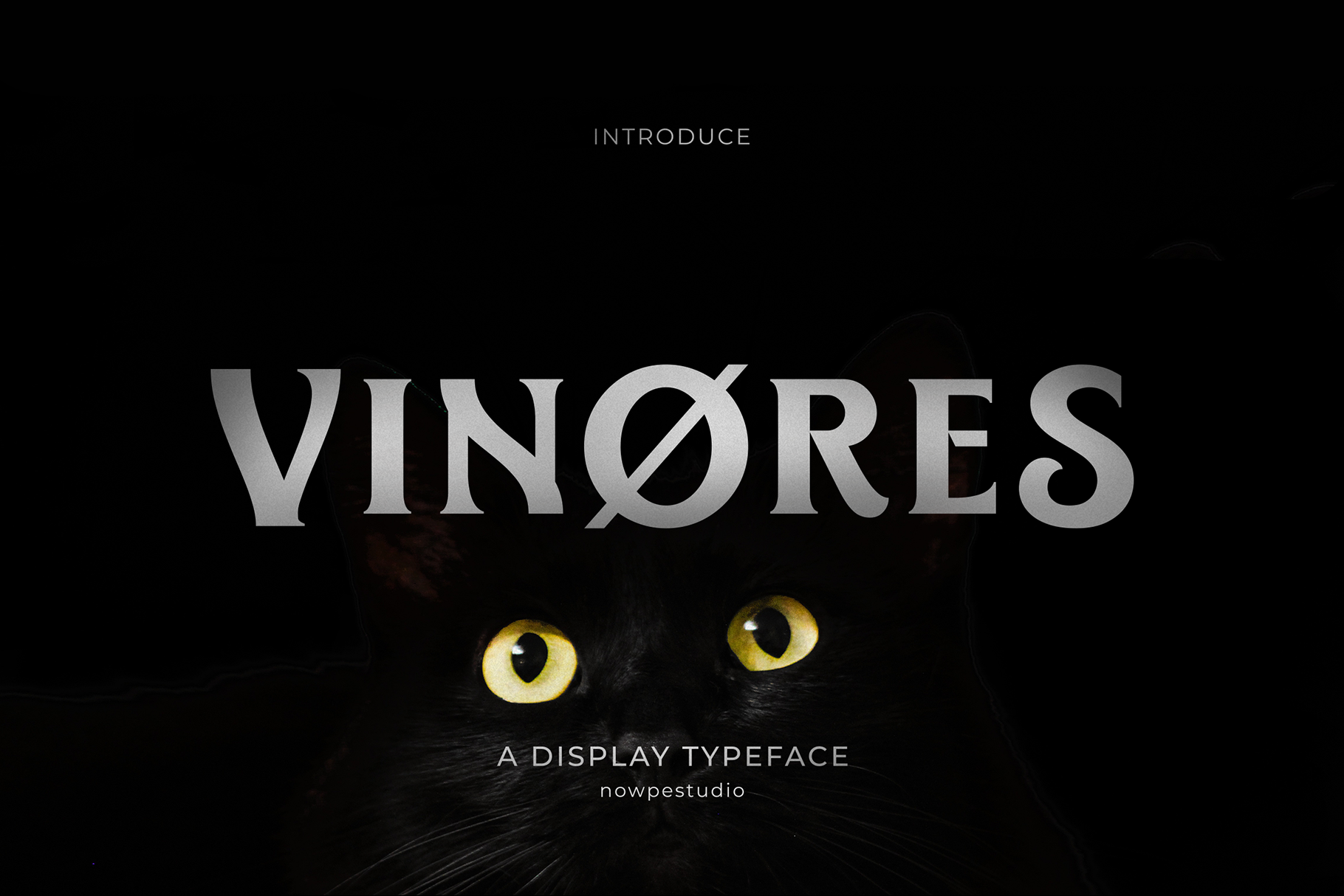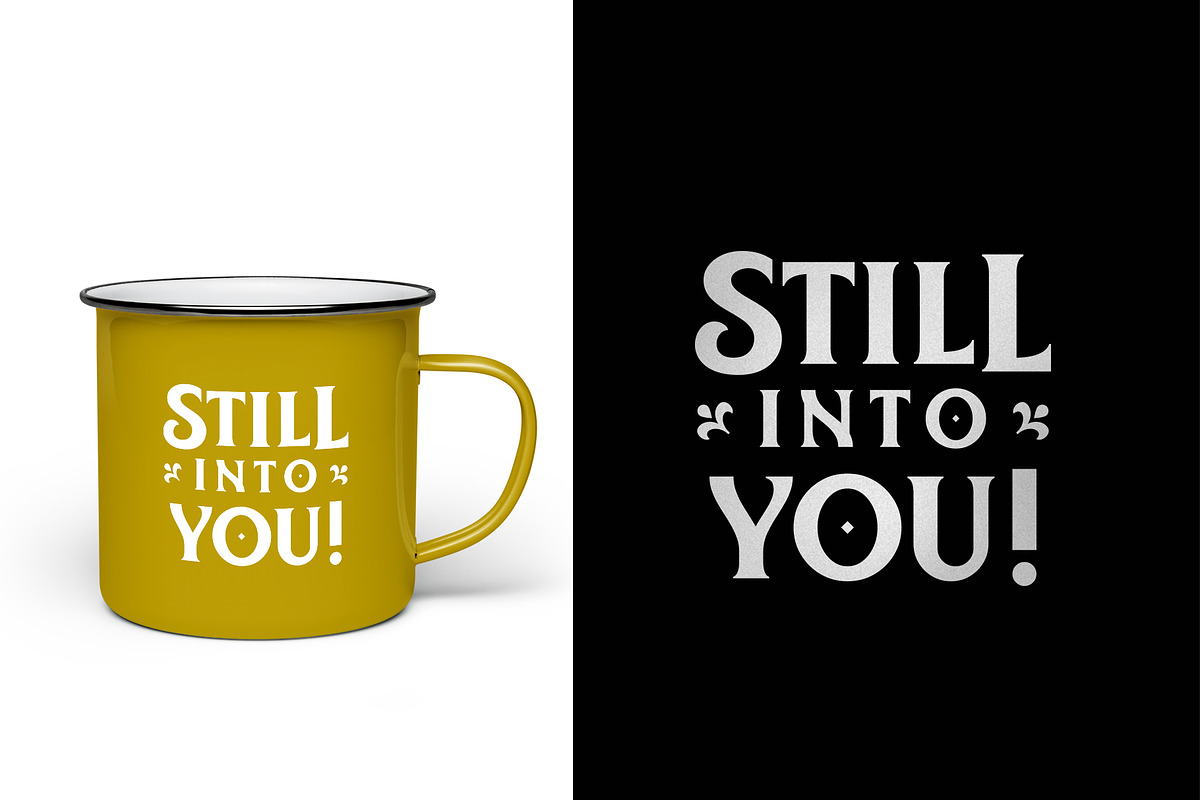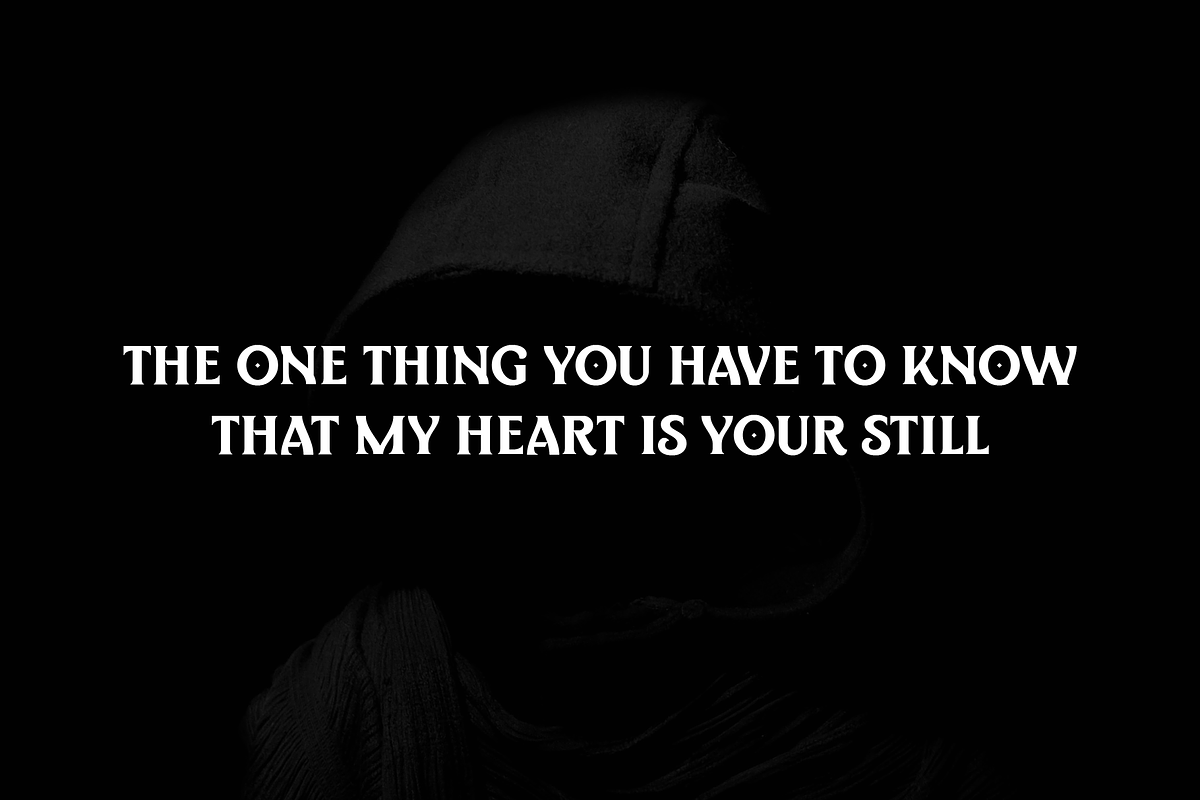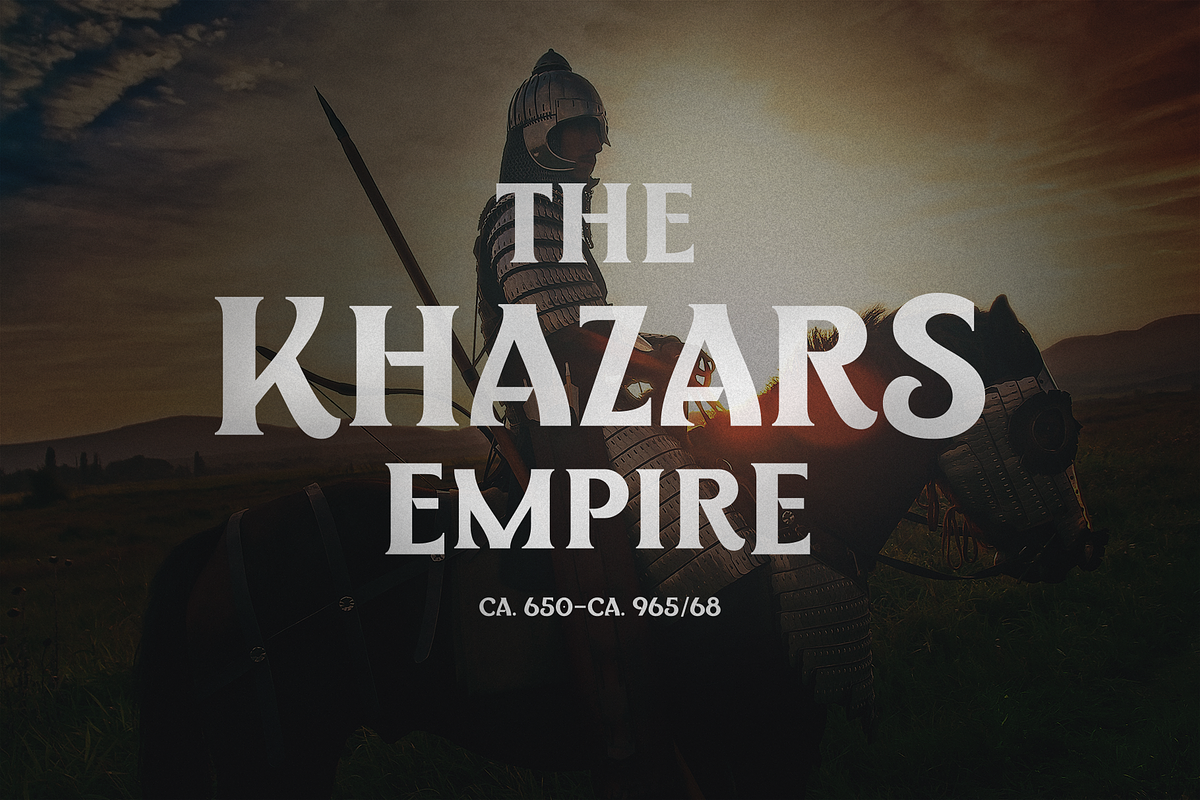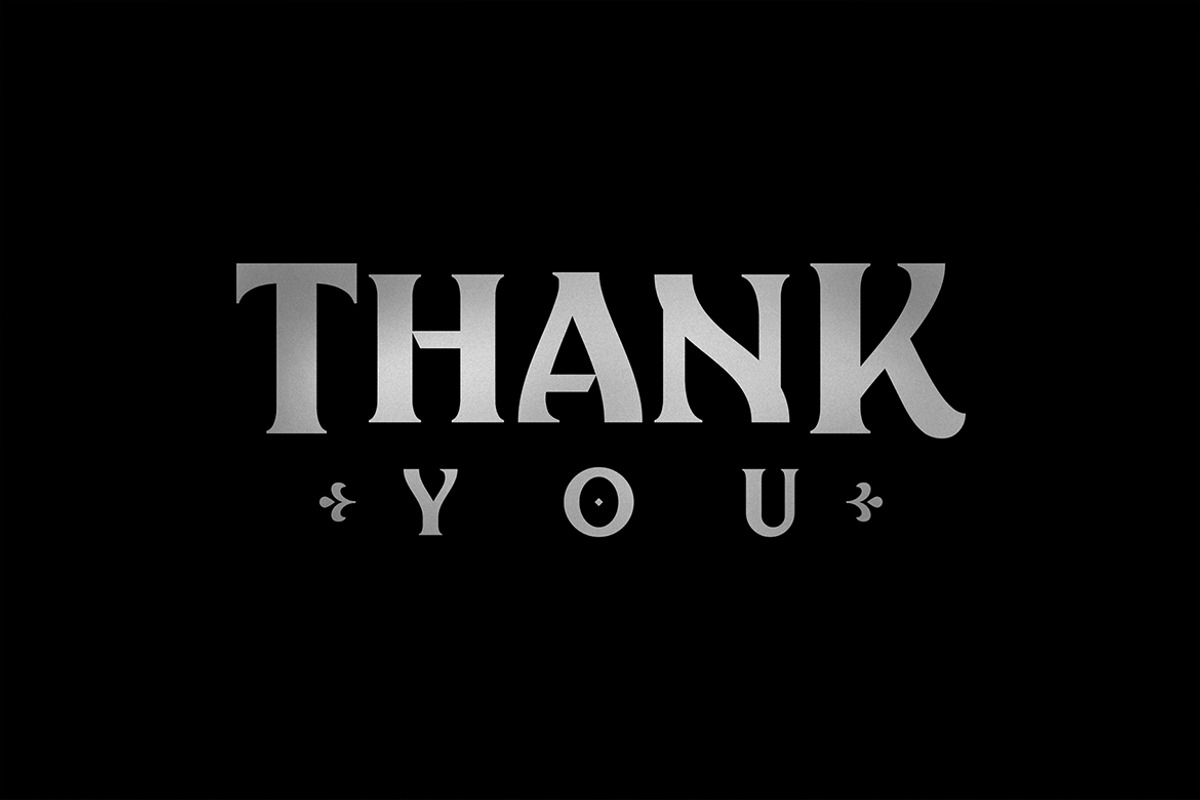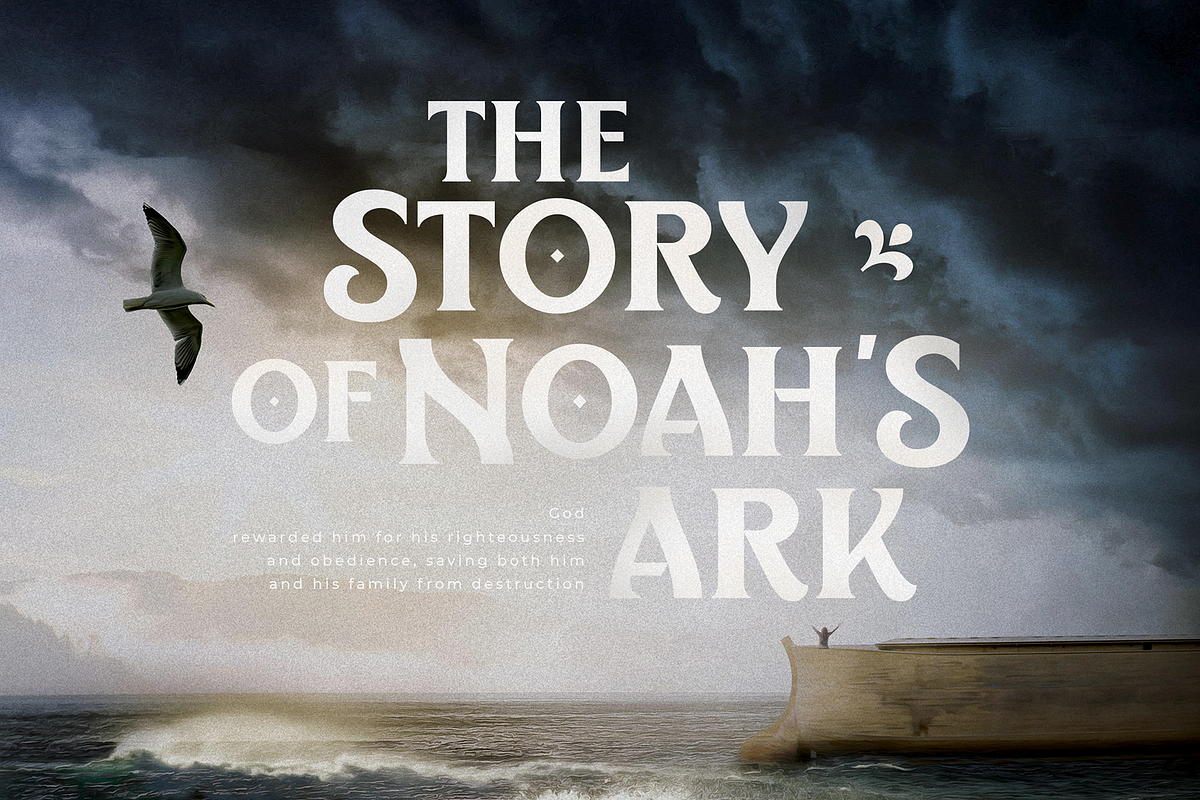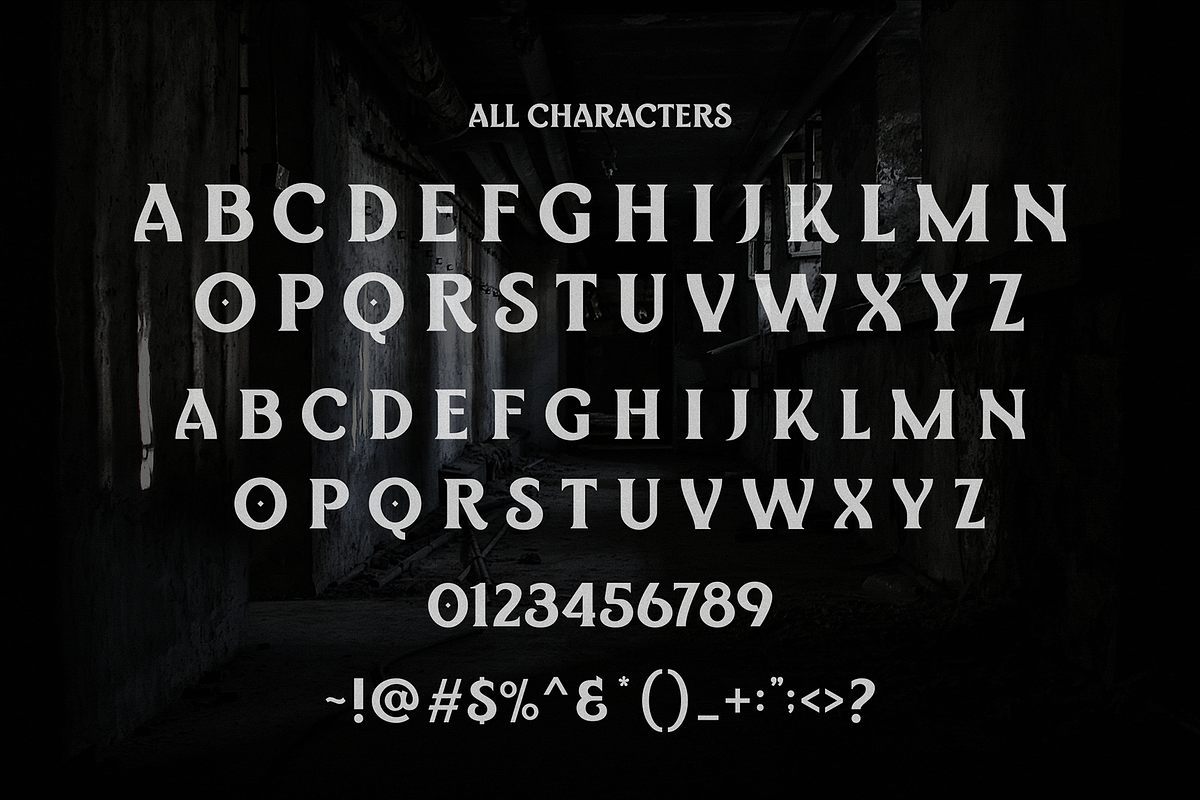
Vinores Typeface
Vinores Typeface | it's a display bold font with victorian style character it's make perfect to create Elegant Design, Modern, Vintage, Retro and more. So Choice any Glyphs and create the awesome typography and design use this.